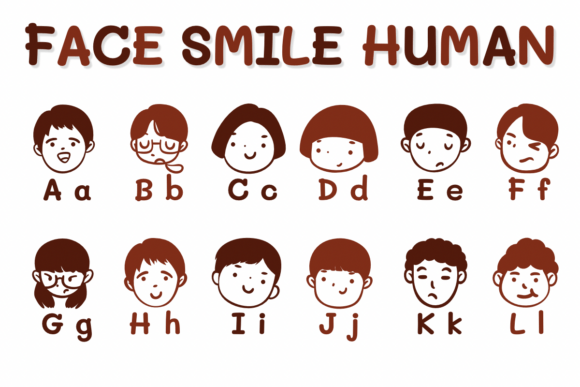
Introducing Face Smile Human Font: The Ultimate Collection of Playful Human Faces
Are you looking for a font that can add a touch of personality and whimsy to your projects? Look no further than Face Smile Human Font, a fun and quirky dingbats font featuring a delightful collection of hand-drawn human faces. Each character in this font brings a unique blend of charm and emotion, making it the perfect addition to playful projects, children’s materials, comics, avatars, and creative branding.
What is Face Smile Human Font?
Face Smile Human Font is a dingbats font that consists of a wide range of hand-drawn human faces, each with its own distinct personality and expression. The font is designed to be fun, playful, and engaging, making it ideal for projects that require a touch of whimsy and creativity. Whether you’re working on a children’s book, a comic strip, or a branding campaign, Face Smile Human Font is sure to bring a smile to your audience’s faces.
Key Features of Face Smile Human Font
- Hand-drawn human faces: Each character in Face Smile Human Font is carefully hand-drawn to ensure a unique and personalized touch.
- Delightful collection: The font features a wide range of human faces, each with its own distinct expression and personality.
- Playful and quirky: Face Smile Human Font is designed to be fun and engaging, making it perfect for playful projects and creative branding.
- Perfect for children’s materials: The font’s playful and whimsical nature makes it an excellent choice for children’s books, educational materials, and kids’ websites.
- Great for comics and avatars: Face Smile Human Font is also ideal for comics, avatars, and other digital applications where a touch of personality and emotion is required.
Uses of Face Smile Human Font
Face Smile Human Font is a versatile font that can be used in a wide range of projects, including:
- Children’s books and educational materials: The font’s playful and engaging nature makes it perfect for kids’ books, educational resources, and children’s websites.
- Comics and graphic novels: Face Smile Human Font is ideal for comics, graphic novels, and other digital applications where a touch of personality and emotion is required.
- Branding and marketing: The font’s unique and playful nature makes it an excellent choice for creative branding and marketing campaigns.
- Avatars and digital characters: Face Smile Human Font is perfect for creating avatars, digital characters, and other online personas.
Benefits of Using Face Smile Human Font
Using Face Smile Human Font in your projects offers a range of benefits, including:
- Unique and personalized touch: The font’s hand-drawn human faces add a unique and personalized touch to your projects.
- Emotional connection: Face Smile Human Font helps create an emotional connection with your audience, making your projects more engaging and memorable.
- Playful and engaging: The font’s playful and quirky nature makes it perfect for projects that require a touch of whimsy and creativity.
- Time-saving: Face Smile Human Font saves you time and effort, as you can easily access a wide range of human faces and expressions.
- Choose your characters: Browse through the font’s collection of human faces and choose the characters that best fit your project.
- Customize and adjust: Customize and adjust the characters as needed, using your design software or application.
Tips and Tricks for Using Face Smile Human Font
Here are some tips and tricks to help you get the most out of Face Smile Human Font:
- Experiment with different sizes and colors: Try out different sizes and colors to add visual interest and personality to your projects.
- Mix and match characters: Combine different characters to create unique and engaging compositions.
- Use the font in combination with other fonts: Pair Face Smile Human Font with other fonts to create a visually appealing and harmonious design.
- Pay attention to character spacing: Adjust the character spacing to ensure a clear and readable design.
Face Smile Human Font is a fun and quirky dingbats font that offers a delightful collection of hand-drawn human faces. With its playful and engaging nature, this font is perfect for a wide range of projects, from children’s materials and comics to branding and avatars. By using Face Smile Human Font, you can add a unique and personalized touch to your projects, creating an emotional connection with your audience and making your work more memorable.